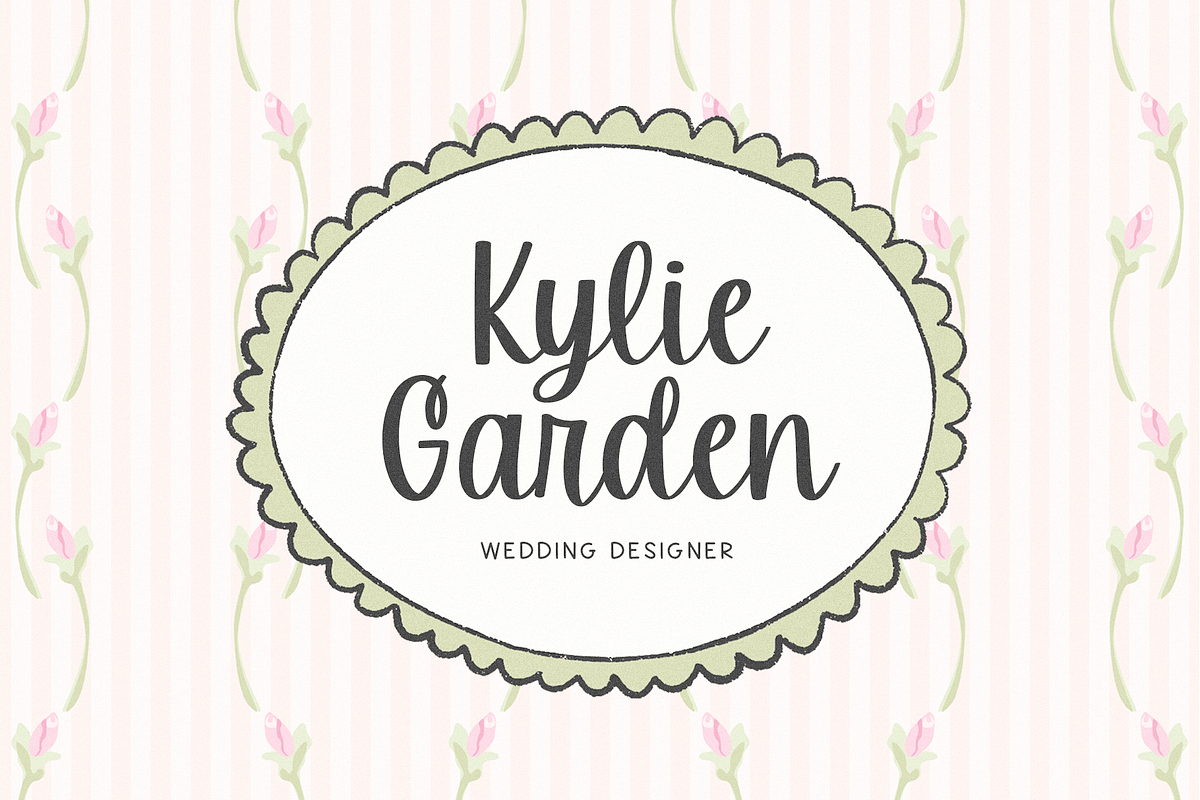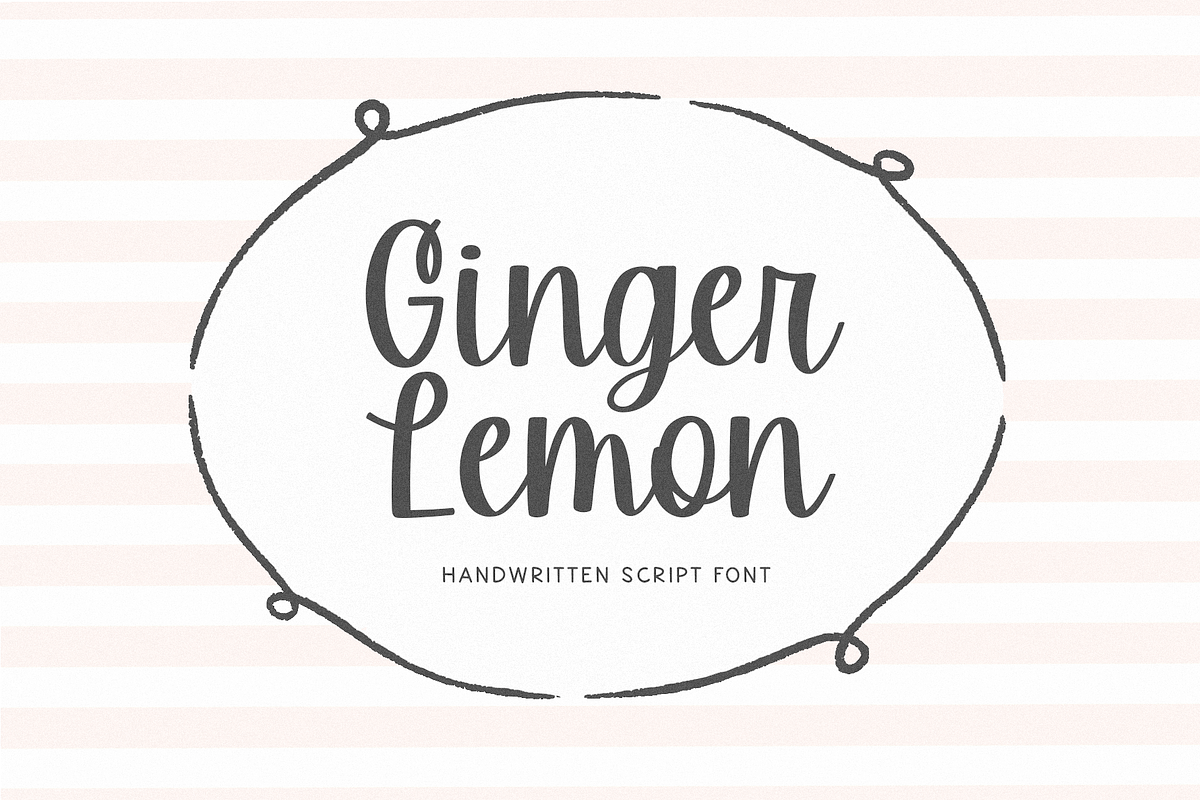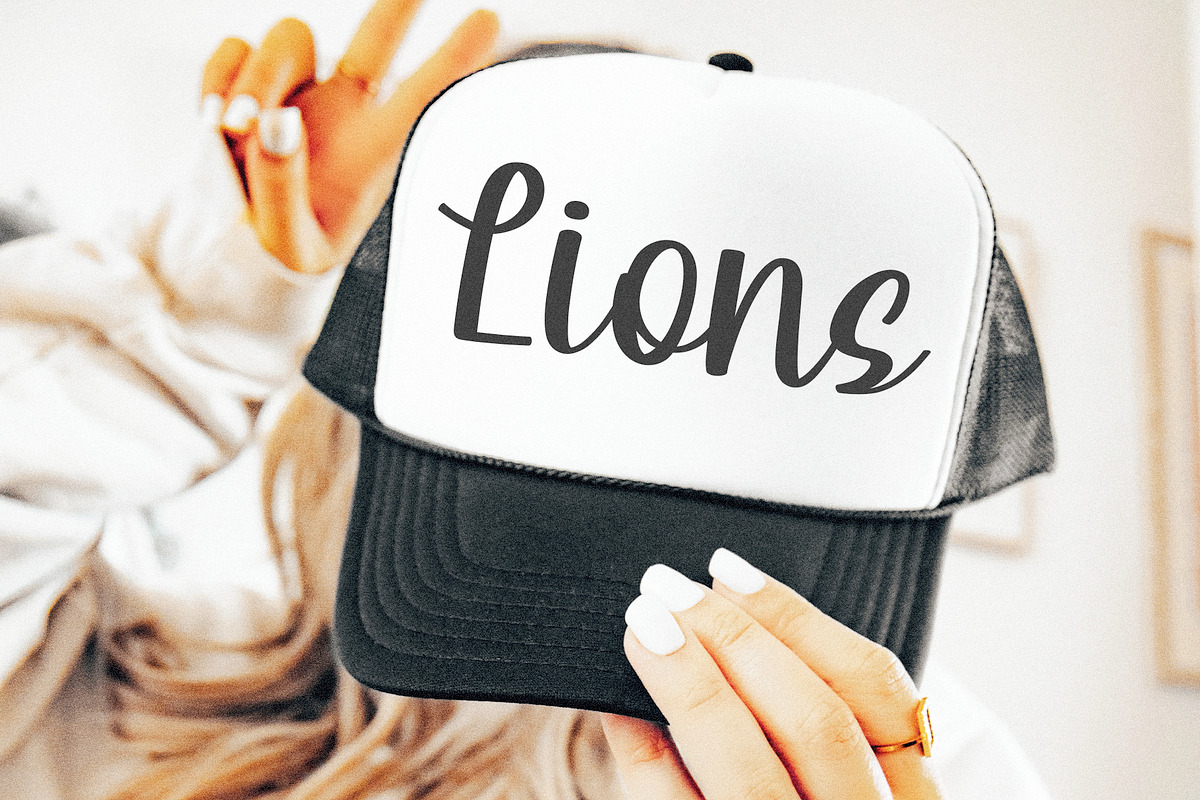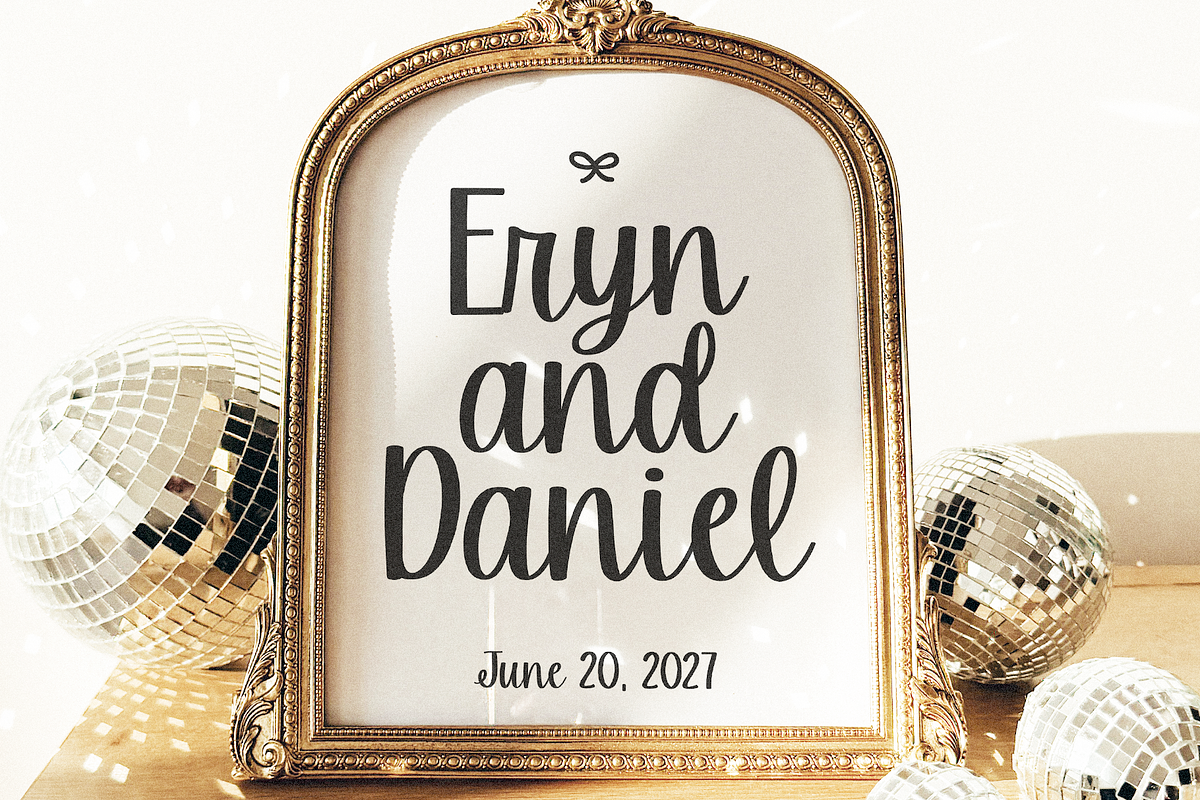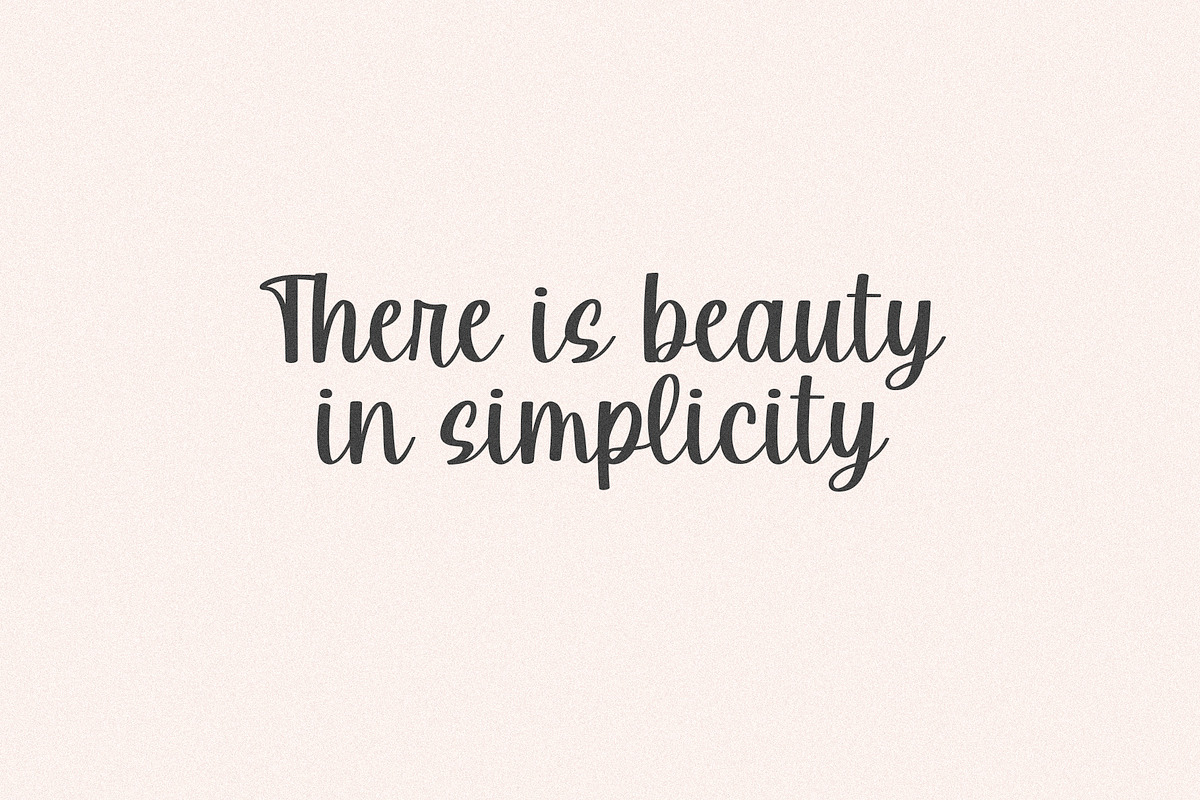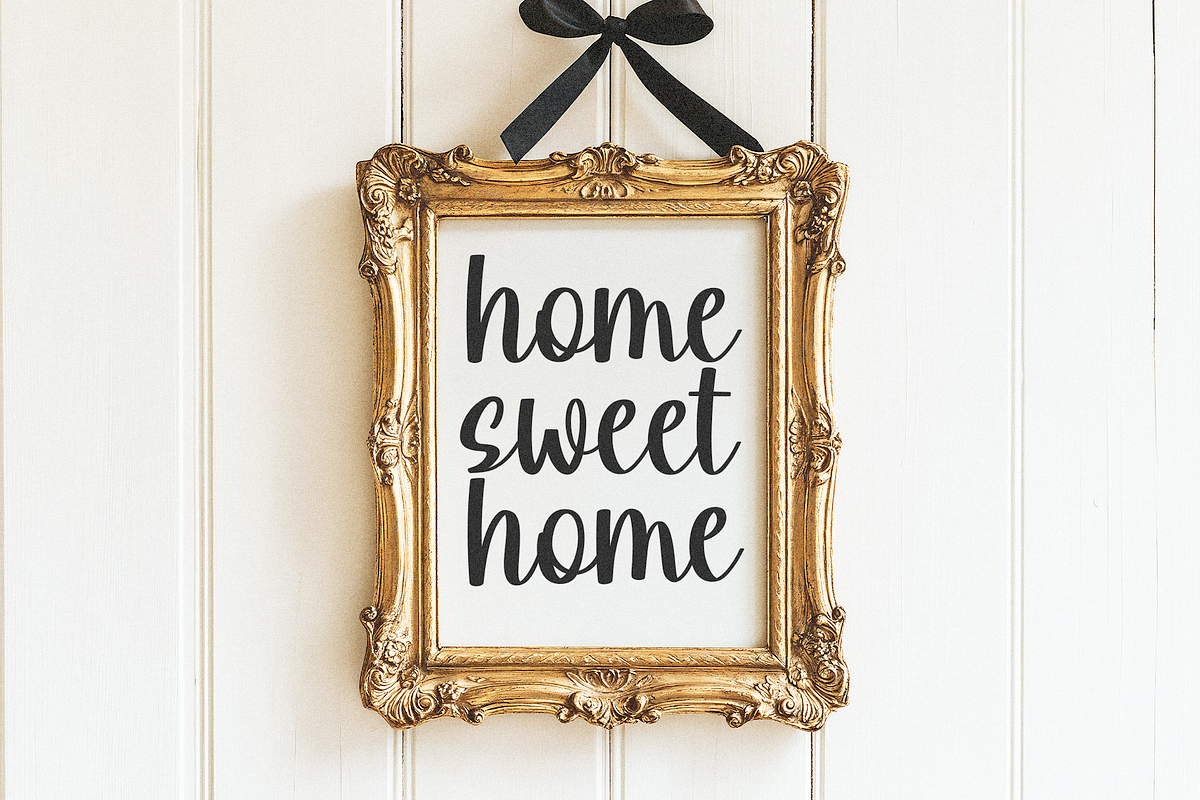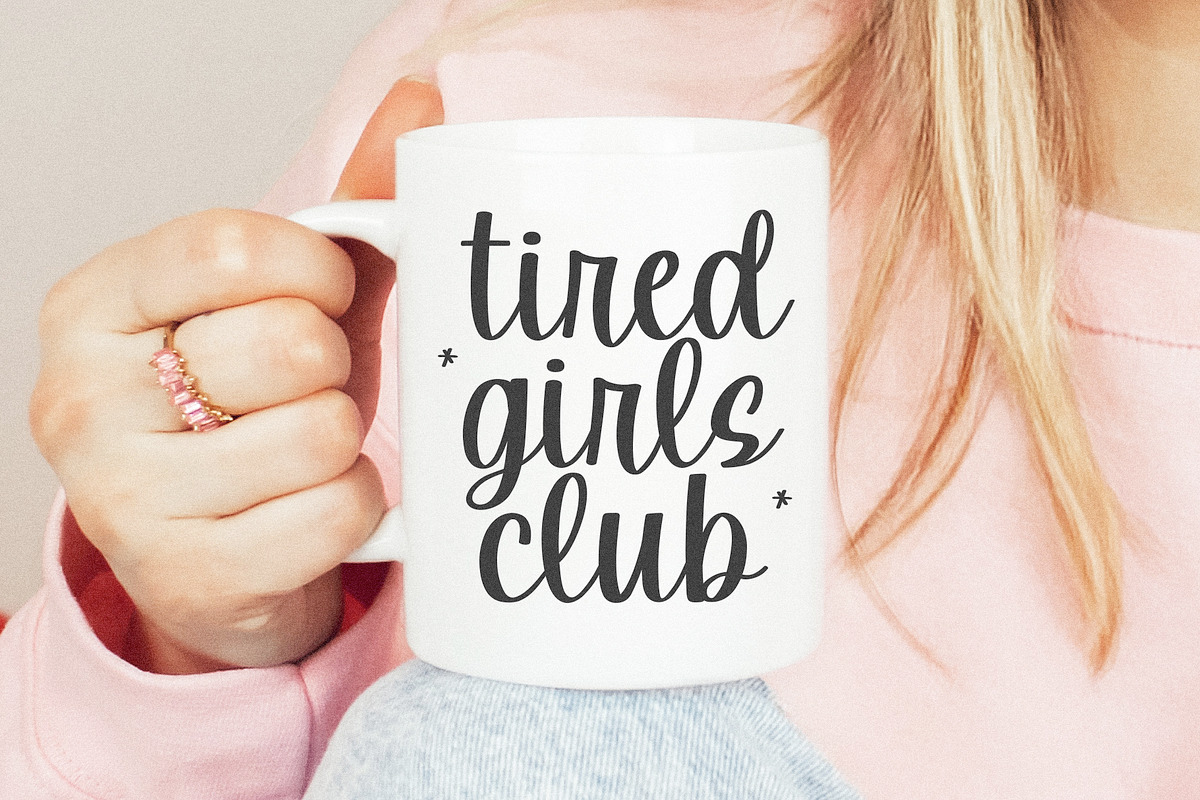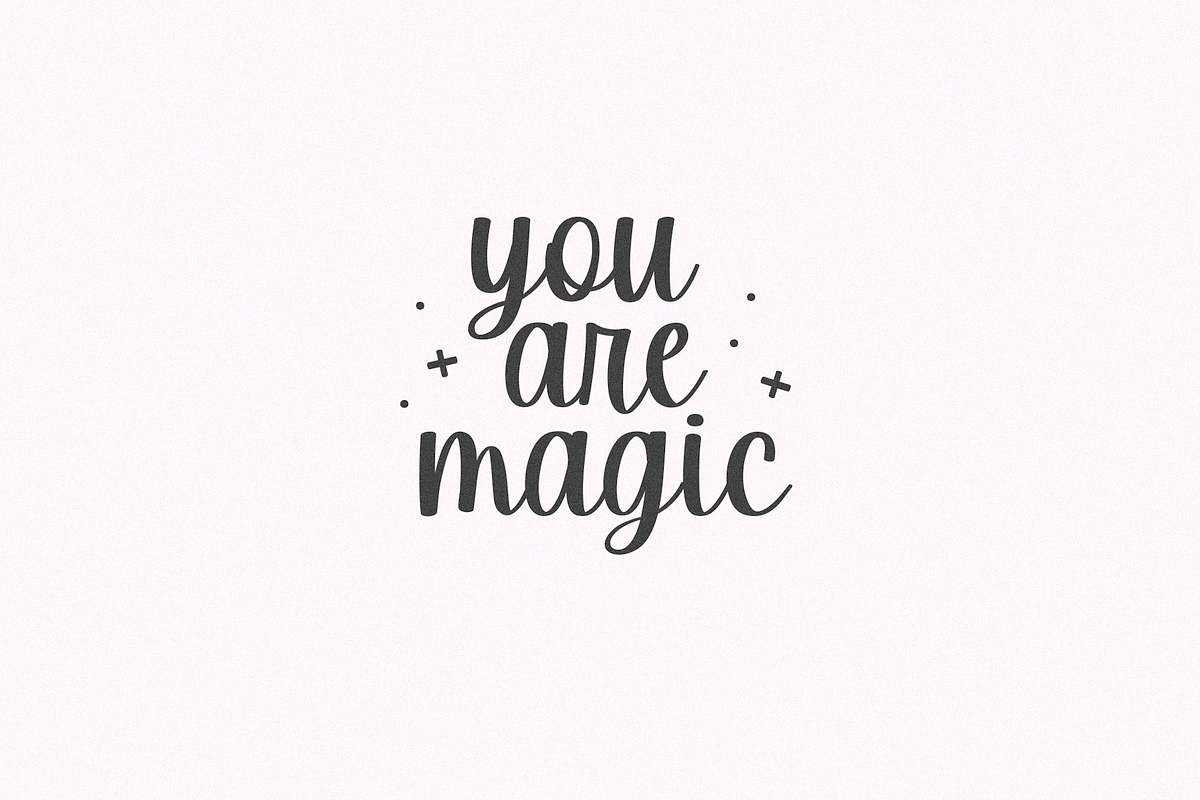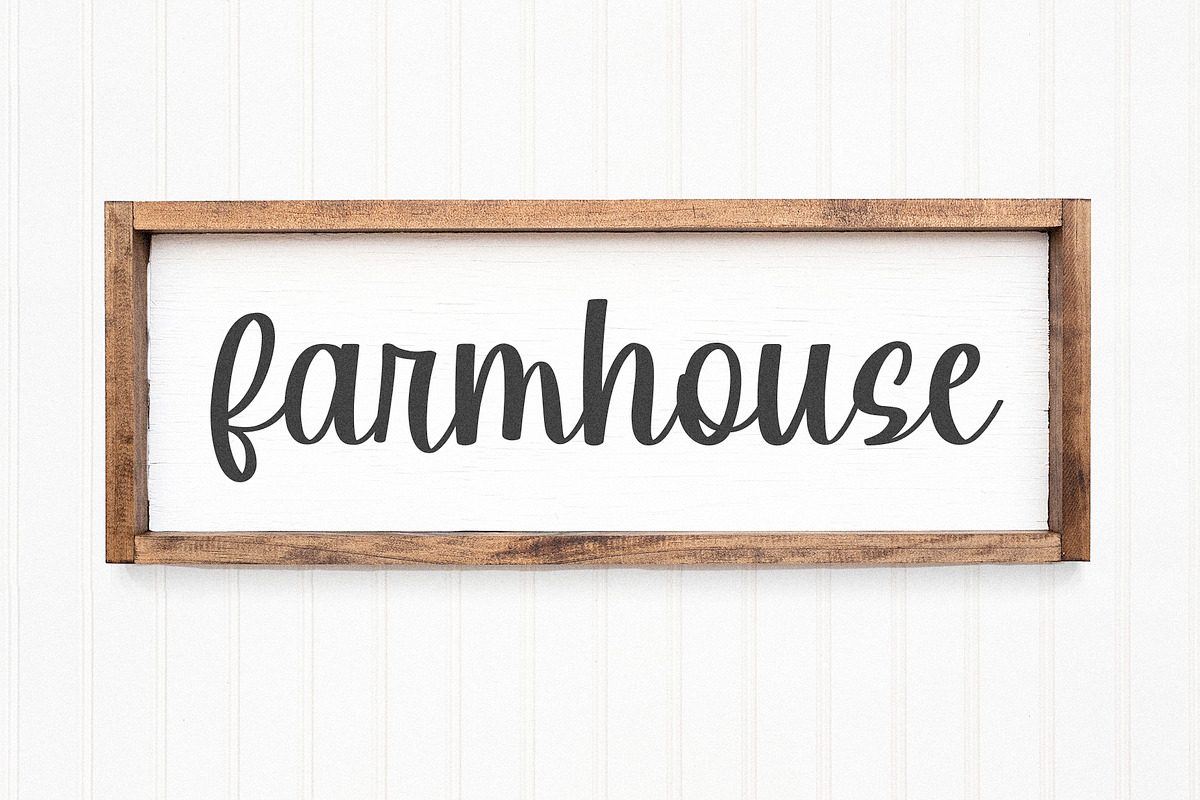
Ginger Lemon | Cute Script Font
Ginger Lemon is a cute script font!
This font is perfect for cricut projects, logos, shirts, svg files, planners, farmhouse designs, wedding invitations, stickers, quotes, social media and more!